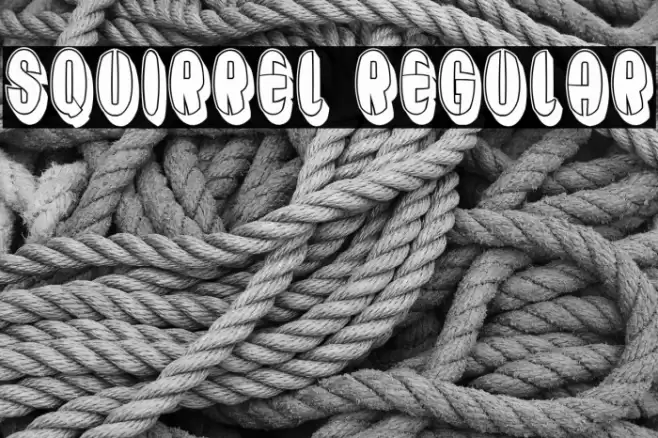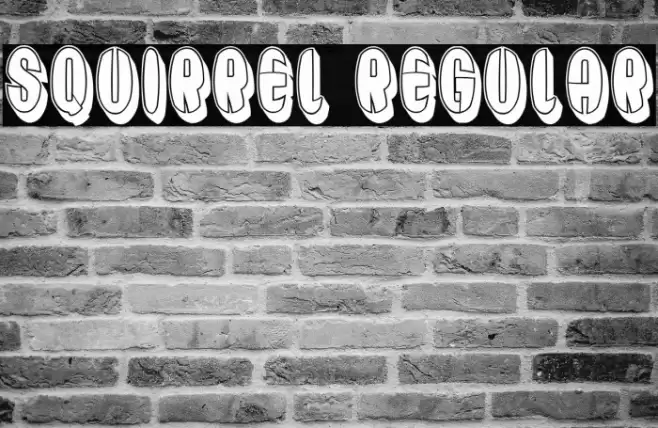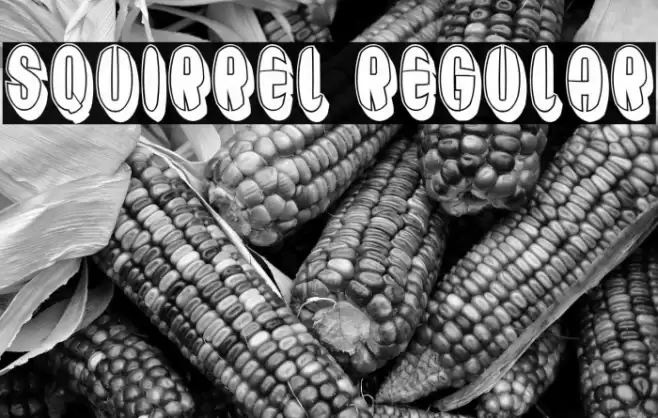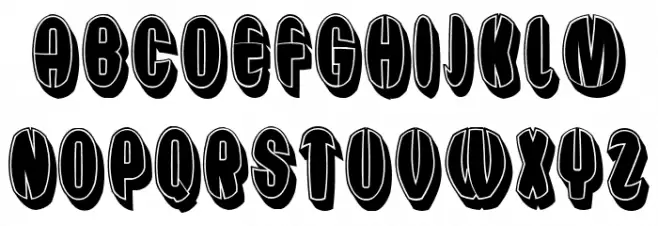
Squirrel Regular Font
Squirrel Regular Description
This font features a bold, playful design with a three-dimensional effect. Each character is encapsulated in an oval shape, creating a unique and eye-catching appearance. The letters are uppercase, with a consistent width and height, giving a uniform look across the alphabet. The inner lines of the characters are thin, contrasting with the thick outer borders, adding depth and dimension. This style is reminiscent of retro or vintage signage, making it ideal for projects that require a touch of nostalgia or whimsy. The font's distinct style makes it suitable for creative and artistic applications, where a bold statement is desired.
A bold, playful font with a 3D effect and retro appeal from Uncategorized fonts.
- Proposed Projects: Ideal for posters, logos, children's books, and retro-themed designs.
- Overall Style: Vintage